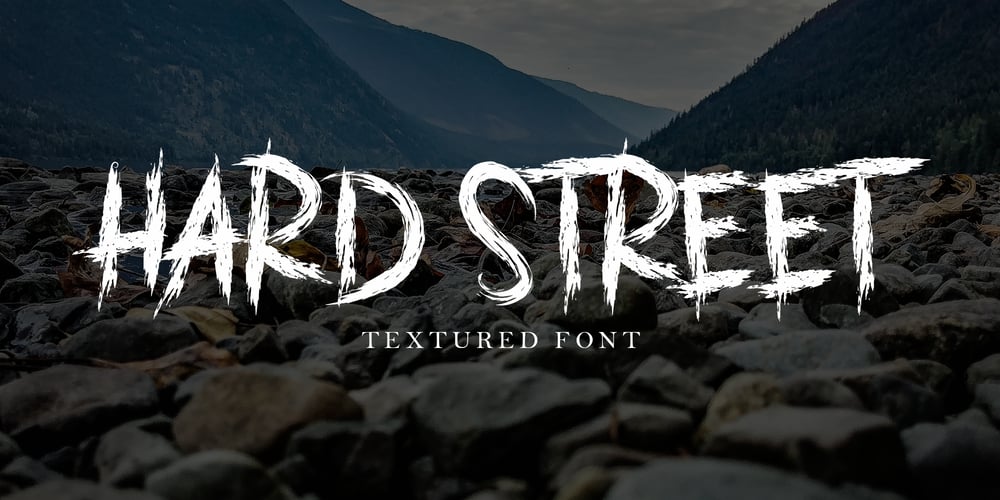
Hard Street Font Family was designed by Amin Maryono and published by Aminmario Studio. Hard Street contains 1 styles and family package options. This is a supercharged font, with natural brush, quick strokes and sharp details. Perfect for challenging jobs, titles, movie,logos, apparel, t-shirts, hoodies, quotes, product packaging, or anything that needs a typographic turbo-boost and a typographic unique style.Thanks for checking out this font. I hope you enjoy it!